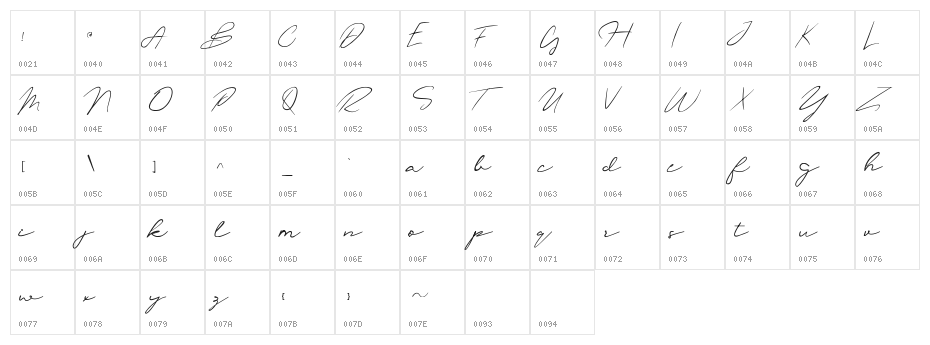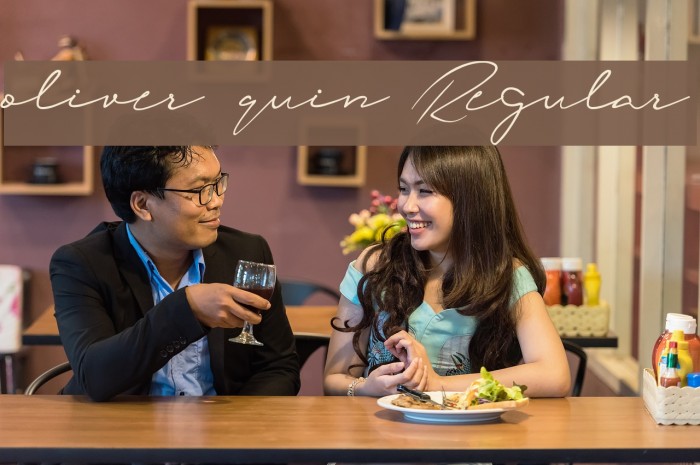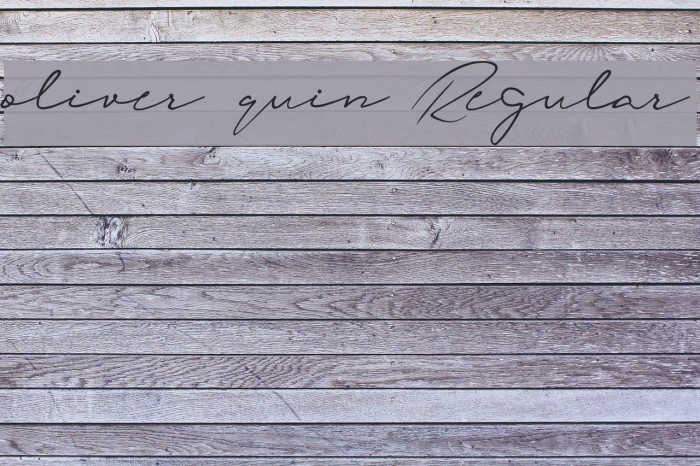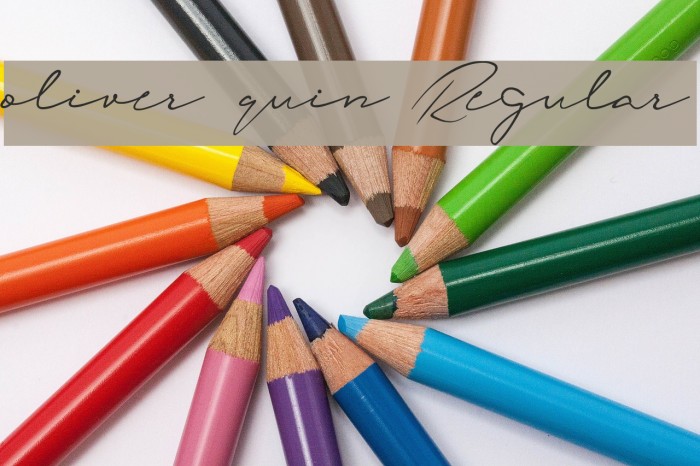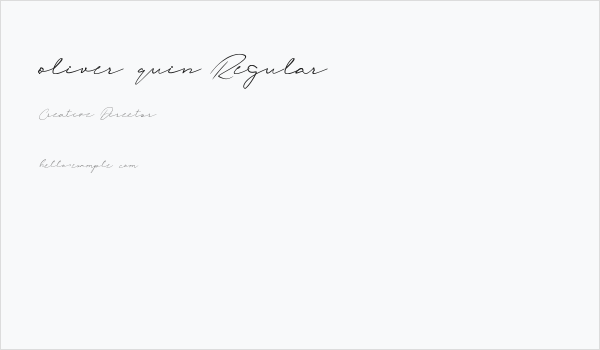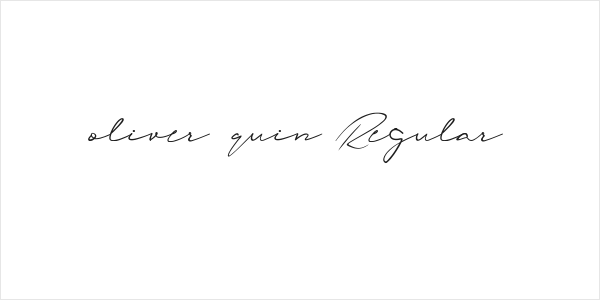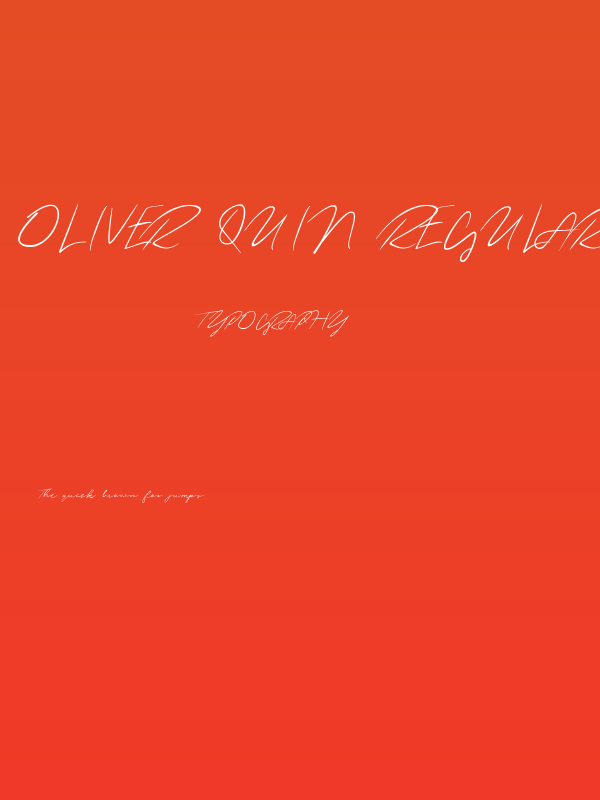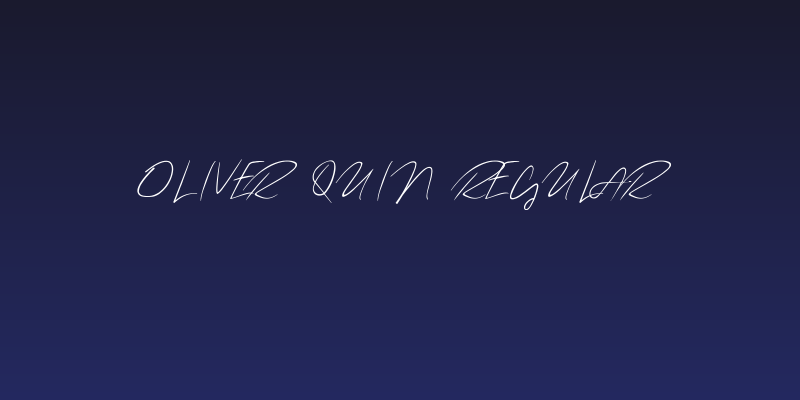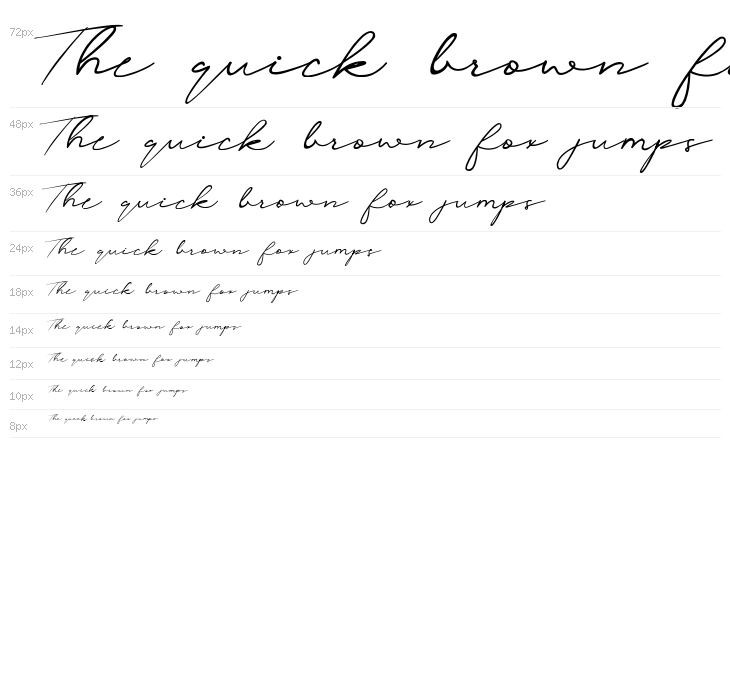
oliver quin Regular Font
oliver quin Regular Description
This font features a flowing, cursive style with elegant, elongated strokes that give it a sophisticated and artistic appearance. The letters are interconnected, creating a seamless and fluid look, reminiscent of traditional handwriting. The uppercase letters are slightly larger and more pronounced, while the lowercase letters maintain a consistent flow. The font's thin lines and delicate curves add a touch of grace and refinement, making it suitable for creative and expressive designs. Its overall aesthetic is both modern and timeless, offering versatility for various applications.
| Overall Style | Elegant, Artistic |
| Proposed Projects | Ideal for wedding invitations, personal branding, artistic projects, and elegant stationery. |